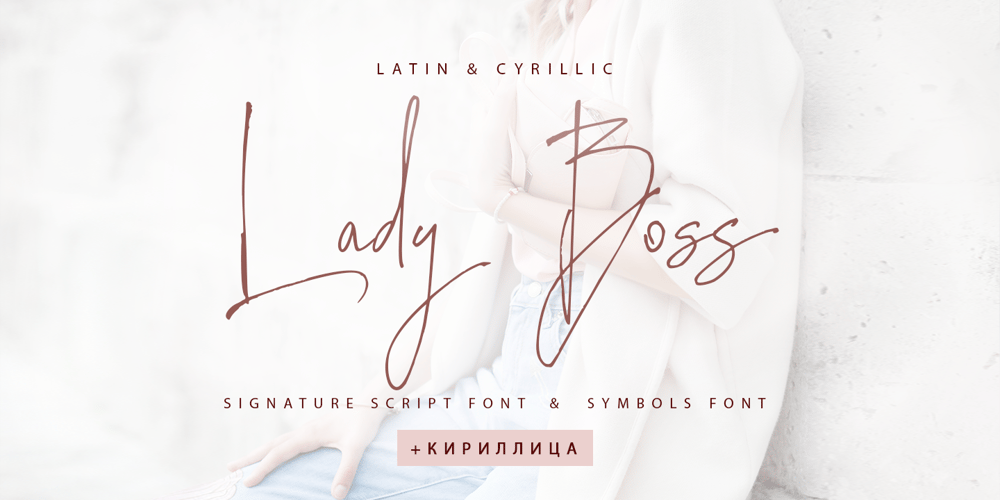
Lady Boss Cyrillic Font Family was designed by Iryna Dviliuk and published by Ira Dvilyuk. Lady Boss Cyrillic contains 2 styles and family package options. Just a few days ago, it was cold, but today it feels like spring is almost here.With these tender feelings, I want to present you Lady Boss Cyrillic script a delicate, feminine thin modern handwritten font.Lady Boss script font contains the Cyrillic glyphs too.Its hand look style makes it perfect for use in all your design projects be it logos, signatures, labels, packaging design, blog headlines. Also, it will look great in mugs, cards, gorgeous typographic designs, wedding stationery and much more.Lady Boss script contains a full set of uppercase and lowercase letters, – which can be used to create a handwritten look.The Cyrillic part of the font contains the uppercase and lowercase letters and 9 letters with long tails. Also Cyrillic part of the font contains 10 Cyrillic ligatures.Lady Boss _symbols is a font with over 50 unique, hand-drawn illustrations and elements that can help you to make your design unique and matchless. Combine and merge swashes and illustrations to create your own designs and make borders, frames, dividers, logos, and more (just use A-Z and a-z keys in the included Lady Boss symbols font). A different symbol is assigned to each uppercase or lowercase standard character, so you do not need graphics software, just type the letter you need.Multilingual Support for 31 languages: Latin glyphs for Afrikaans, Albanian, Basque, Bosnian, Catalan, Danish, Dutch, English, Estonian, Faroese, Filipino, Finnish, French, Galician, Indonesian, Irish, Italian, Malay, Norwegian Bokmål, Portuguese, Slovenian, Spanish, Swahili, Swedish, Turkish, Welsh, Zulu.And Cyrillic glyphs support for Russian, Belorussian, Bulgarian, and Ukrainian languages.